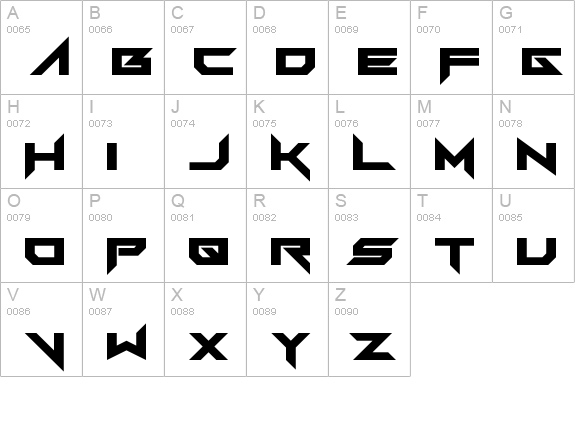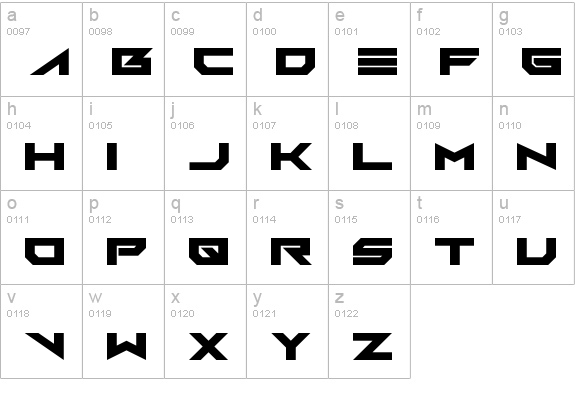
FoughtKnight Victory font is a bold and dynamic typeface that exudes strength and power. With its sharp edges and striking design, this font is perfect for making a bold statement in your projects. Whether you're designing a poster, logo, or any other creative work, FoughtKnight Victory will command attention and leave a lasting impression. The best part is that FoughtKnight Victory font is available for free download at FontsMarket.com. You can easily access this powerful font and enhance your designs with its unique style. Don't miss out on the opportunity to add FoughtKnight Victory to your font collection and take your projects to the next level.